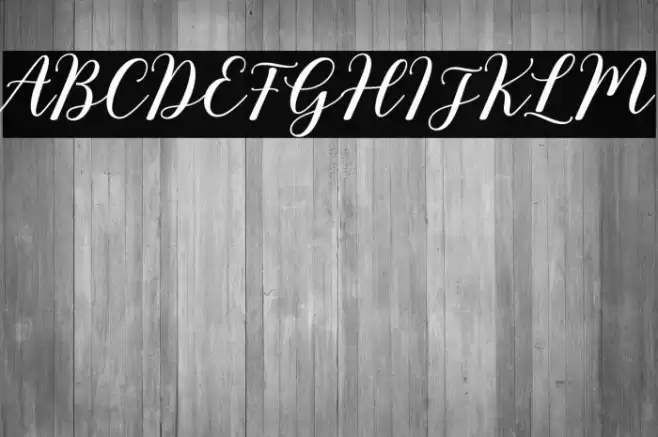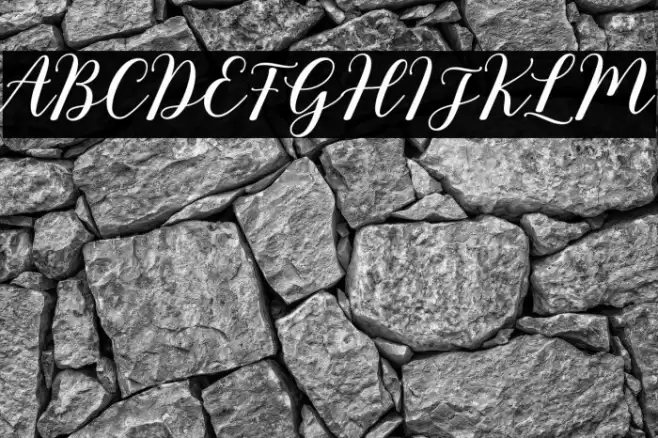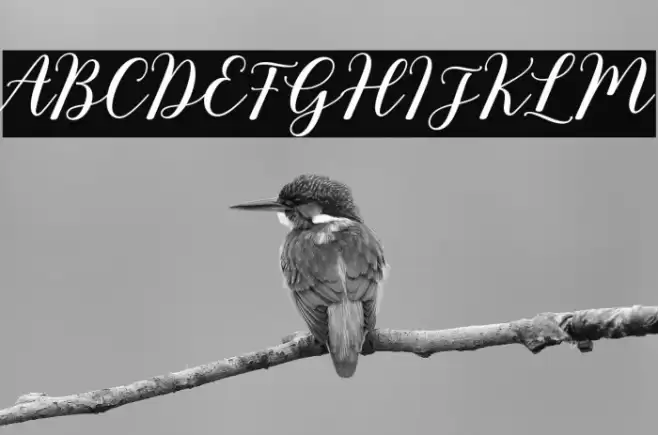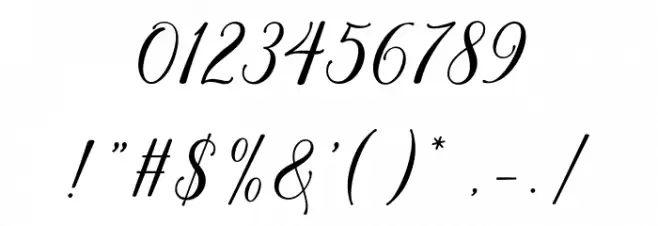
RixilineScript Font
RixilineScript Description
This elegant script font features flowing, cursive letterforms that exude sophistication and grace. The uppercase letters are characterized by sweeping loops and flourishes, giving them a dynamic and lively appearance. The lowercase letters maintain a consistent flow, with smooth connections between characters, enhancing readability while preserving the script's decorative nature. The numerals are stylish yet clear, complementing the overall aesthetic. Special characters are thoughtfully designed to match the font's elegant style, making it versatile for various applications. This font is perfect for projects that require a touch of elegance and sophistication.
An elegant script font with flowing, cursive letterforms and decorative flourishes from Uncategorized fonts.
- Font: RixilineScript
- Overall Style: Elegant, Decorative